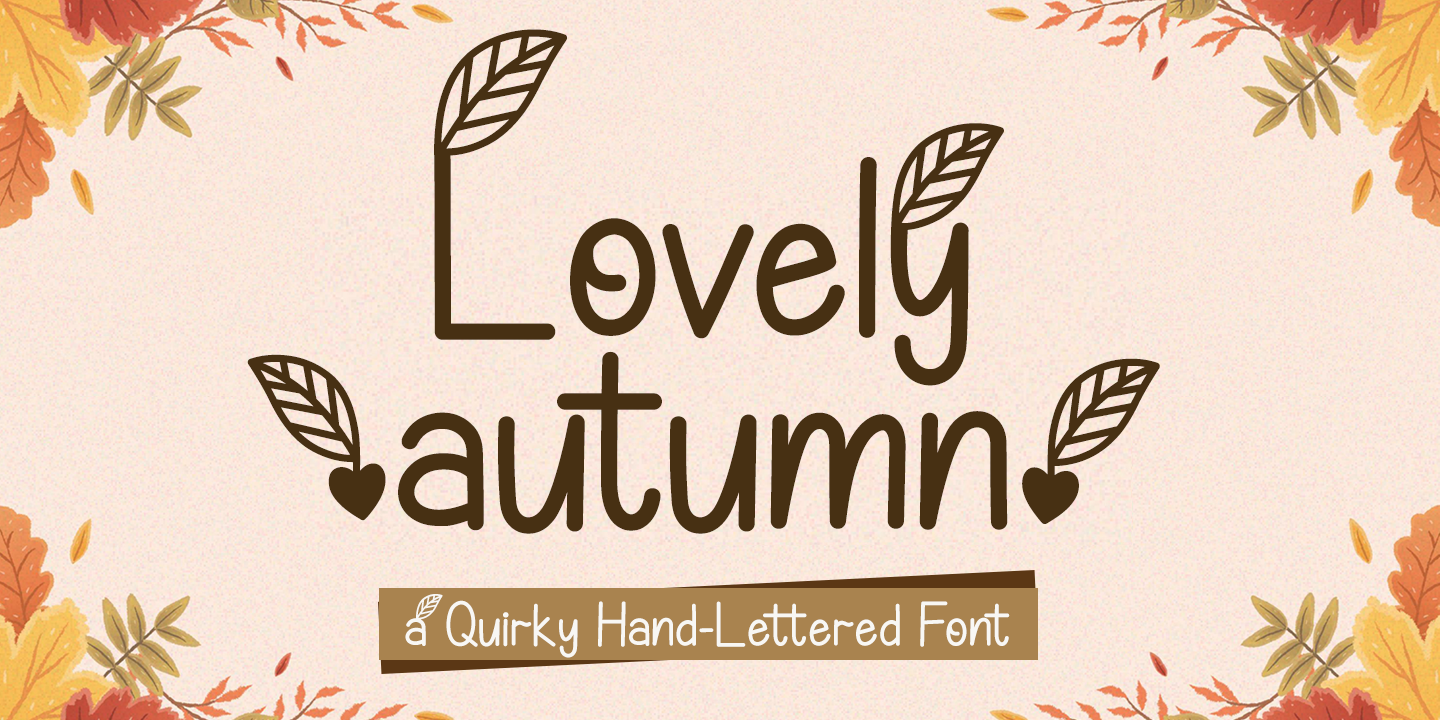
Lovely Autumn Font excels in seasonal design applications including fall festival branding, cozy café signage, harvest-themed marketing, autumn wedding invitations, seasonal product packaging, thanksgiving materials, rustic home décor branding, and warm advertising campaigns that require typography with seasonal character and cozy autumn charm.
What makes Lovely Autumn Font exciting is its wonderful ability to capture the warmth and romantic beauty of autumn through lovingly crafted letterforms that embody the golden glow and cozy comfort of fall seasons. This enchanting typeface features warm characteristics with seasonal curves and harvest-inspired proportions that instantly communicate coziness, romance, and seasonal beauty. The font's autumn personality and cozy appeal make it perfect for brands seeking to establish emotional connection with seasonal experiences and communicate values of warmth, comfort, and natural beauty.
Lovely Autumn Font family includes various weights and seasonal variations designed for comprehensive autumn communication. The family typically includes light, regular, bold, and decorative weights, complemented by cozy alternates, seasonal ligatures, and extended character sets with autumn symbols that enhance its warm aesthetic and provide maximum seasonal impact.
Seasonal designers consistently choose Lovely Autumn Font Free Download for projects requiring typography that embodies autumn warmth and seasonal romance. This charming typeface delivers exceptional emotional appeal across seasonal applications, from digital fall campaigns to physical harvest packaging, ensuring consistent brand messaging with unmistakable autumn authority and cozy charm. The font's warmly crafted letterforms maintain excellent readability while delivering the comforting presence that seasonal brands demand. Harvest-themed agencies worldwide rely on this seasonal typeface to communicate brand values of warmth, comfort, and autumn excellence. Embrace autumn's golden beauty with Lovely Autumn Font and create memorable visual communications that resonate with audiences who appreciate seasonal warmth, cozy comfort, and the romantic charm of autumn's golden embrace that brings hearts together.